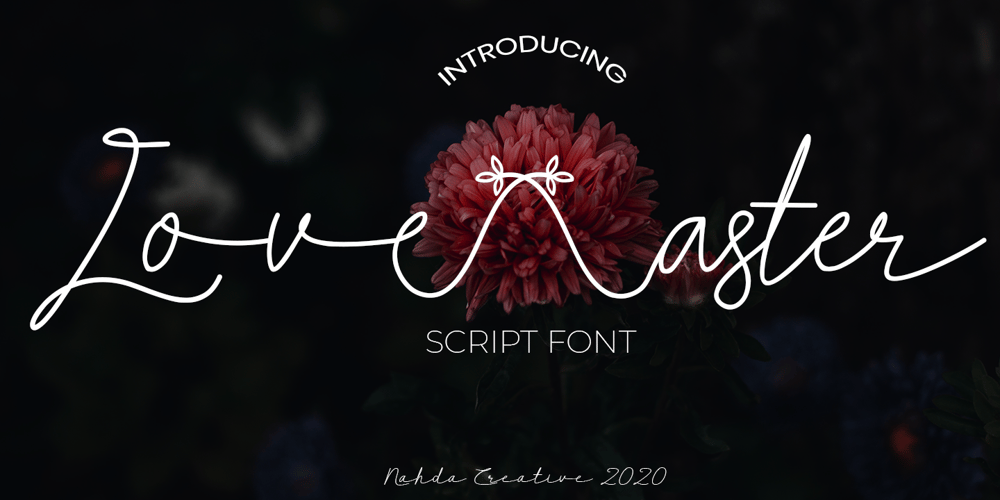
Love Aster Font Family was designed by Nahda Rajman and published by Nahda Creative. Love Aster contains 1 styles and family package options. Love aster is a sweet and friendly script font. It looks lovely on wedding invitations, signature, thank you cards, quotes, greeting cards, business cards and every other design which needs a handwritten touch.This font is PUA encoded which means you can access all of the glyphs and swashes with ease!